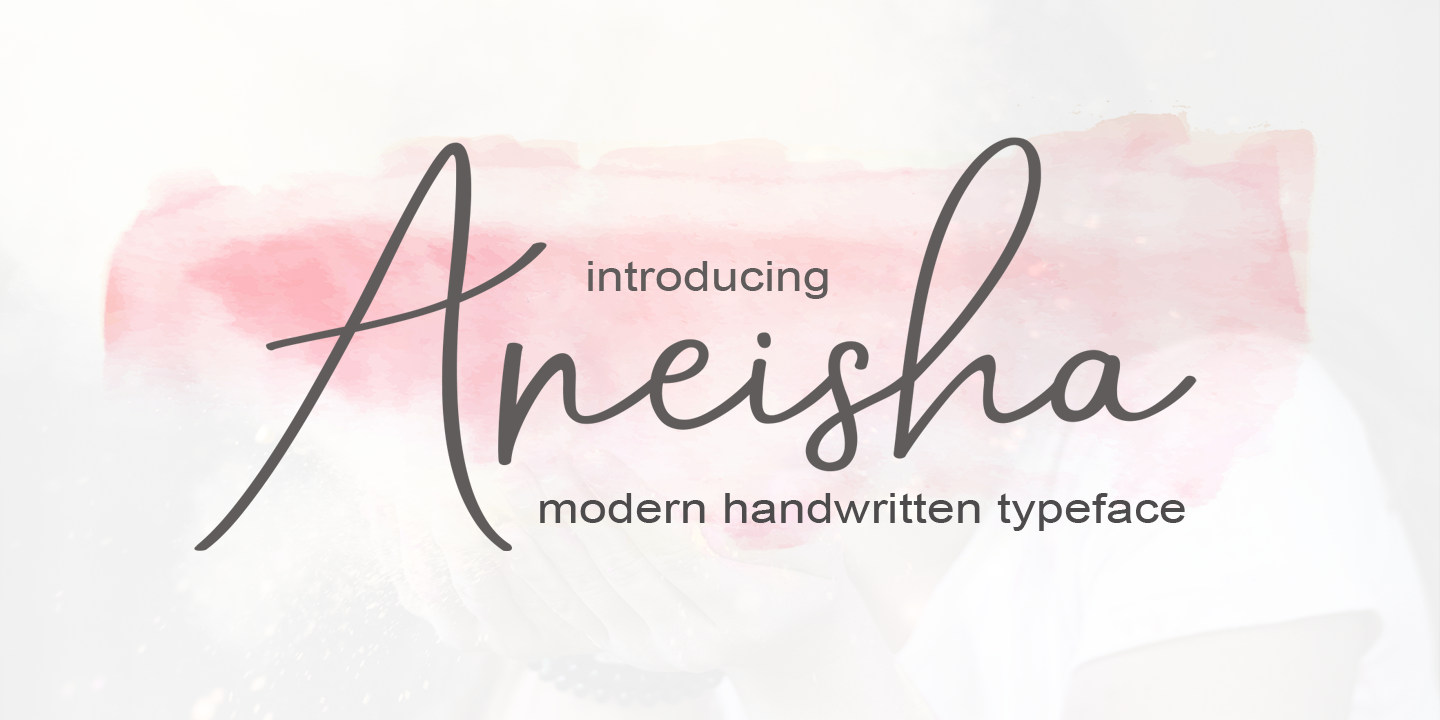
This elegant calligraphy font is perfect for luxury wedding invitations, high-end beauty branding, sophisticated fashion campaigns, premium boutique signage, romantic greeting cards, upscale event planning, feminine lifestyle marketing, and graceful design projects that celebrate timeless elegance and refined femininity.
Aneisha Script Font is exciting because it embodies graceful sophistication with its flowing letterforms that dance like elegant poetry written in golden ink. The font delivers romantic authority while maintaining luxurious readability that speaks to refined tastes and celebrates authentic feminine beauty.
The Aneisha Script Font family includes regular and ornamental versions with decorative swashes, romantic flourishes, and elegant alternates, providing designers with comprehensive tools for creating enchanting typography that captivates with aristocratic charm.
Ready to embrace sophisticated romance? Aneisha Script Font Free Download offers designers flowing letterforms that radiate with elegant grace and feminine sophistication. This captivating typeface combines romantic aesthetics with professional functionality, making it ideal for luxury wedding planners, high-end beauty brands, and sophisticated lifestyle companies. Whether you're designing exclusive wedding stationery, luxury beauty campaigns, or elegant fashion promotions, this font delivers enchanting appeal. The gracefully scripted characters feature romantic curves while maintaining excellent readability across feminine applications. Perfect for businesses in luxury weddings, high-end beauty, sophisticated fashion, and elegant lifestyle sectors that celebrate refined femininity and romantic sophistication. The font's elegant construction creates memorable brand recognition that resonates with sophisticated women worldwide. Each letter showcases deliberate grace that mirrors the timeless appeal of romantic elegance. Download today and infuse your creative projects with sophisticated beauty using this premium script font that transforms ordinary text into extraordinary expressions of feminine grace and the enchanting allure of Aneisha Script Font Free Download elegance.